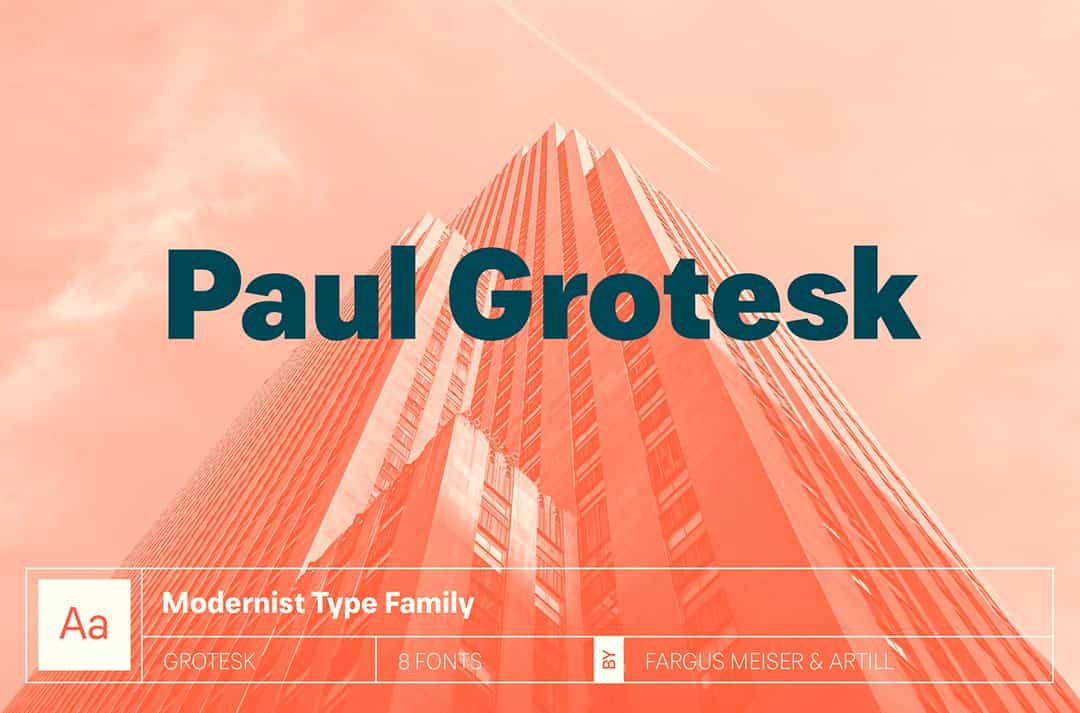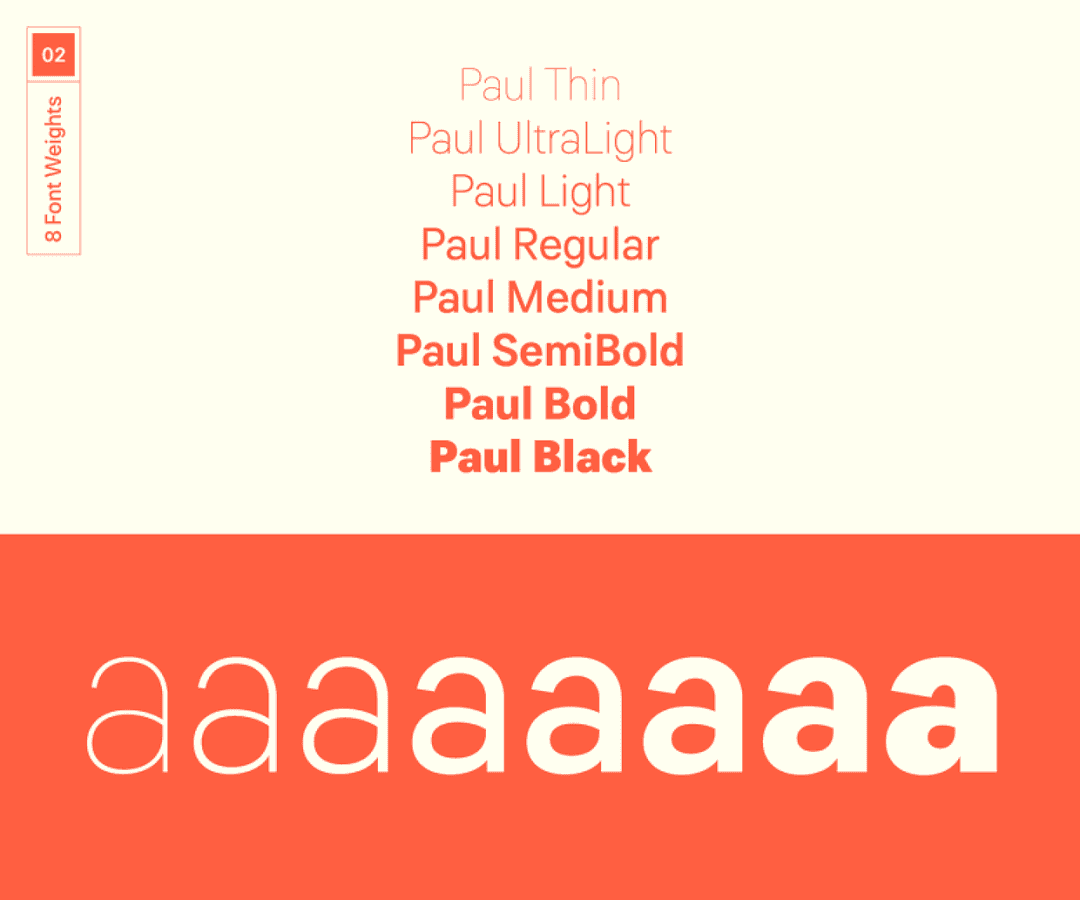
Paul Grotesk Sans Serif Font Family is an exquisite minimal grotesque typeface designed and published with Fargus Meiser and Lukas Bischoff, available in 8 fashionable weights (3 of which can be tested free-of-charge. This design was powered by opentype features in mind).